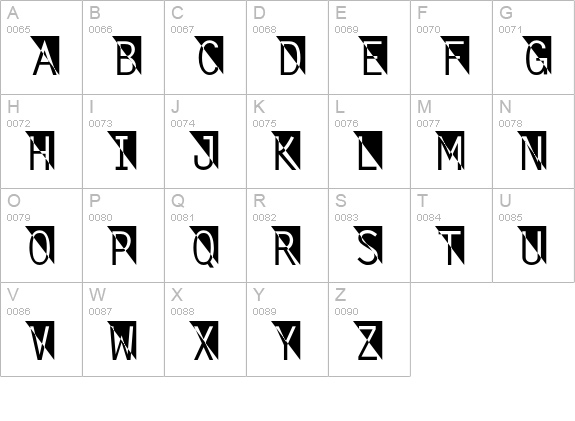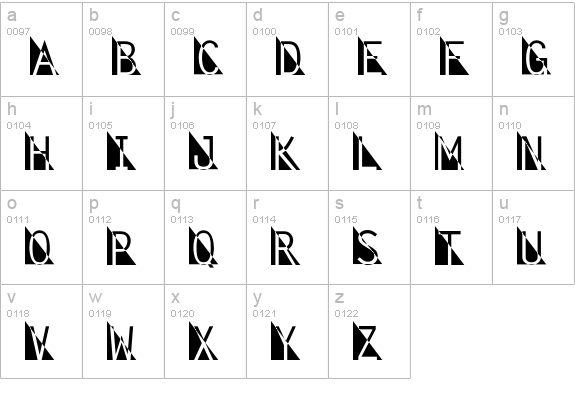
Fantomet2 Font Details
Fantomet2 is a stunning and versatile font that brings a touch of elegance and sophistication to any design project. With its bold and modern style, Fantomet2 is perfect for creating eye-catching headlines, logo designs, posters, and more. This font features clean lines and a sleek, contemporary look that will make your text pop. What's even better is that Fantomet2 is available for free! You can easily download this beautiful font at FontsMarket.com and start using it in your projects right away. Whether you're a designer looking to add a unique flair to your work or a business owner in need of a professional font for branding, Fantomet2 is sure to impress. Don't miss out on this fantastic opportunity to enhance your designs with the sleek and stylish Fantomet2 font.